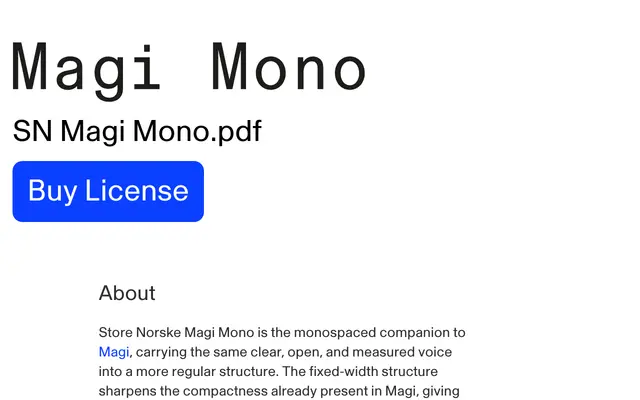
Store Norske Magi Mono
A fixed-width companion to Magi by Arve Båtevik, carrying the same open and measured character into a regular, compact structure suited to code, tables and interface text.
Designed by Arve Båtevik, Magi Mono applies the restraint and clarity of the Magi family to a fixed-width format, sharpening its compact proportions without losing the soft geometry that keeps extended reading comfortable. The monolinear structure gives an even, dense text image well suited to notes, navigation and structured material. A broad Latin character set covers Western and Central European scripts along with Baltic, Turkish, Celtic and Sami languages, and three stylistic sets offer alternate forms for the lowercase a, zero, and percent and per mille signs.
A fixed-width typeface with monolinear structure and soft geometry, designed as a monospaced companion to Magi, intended for code, editorial and interface use.